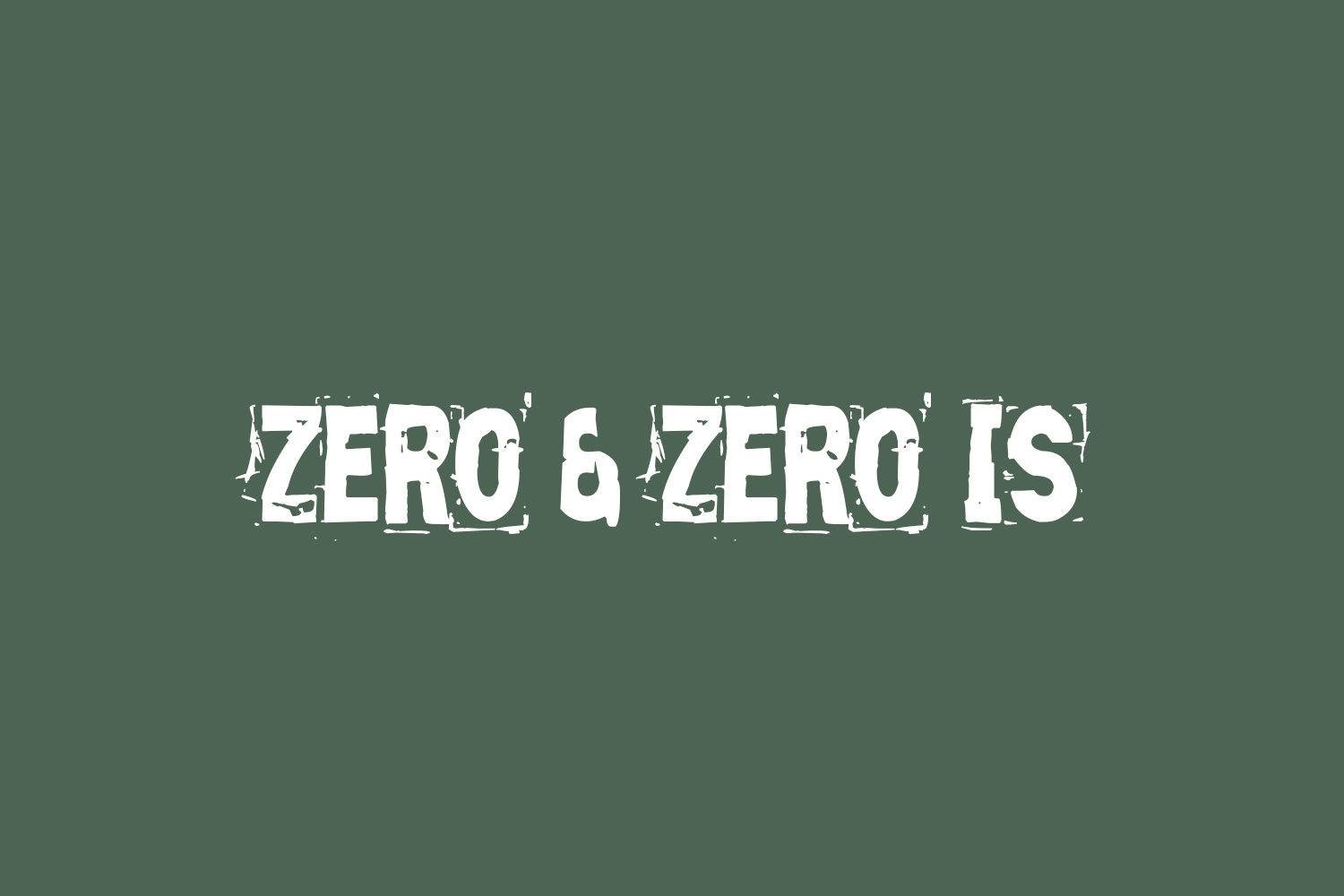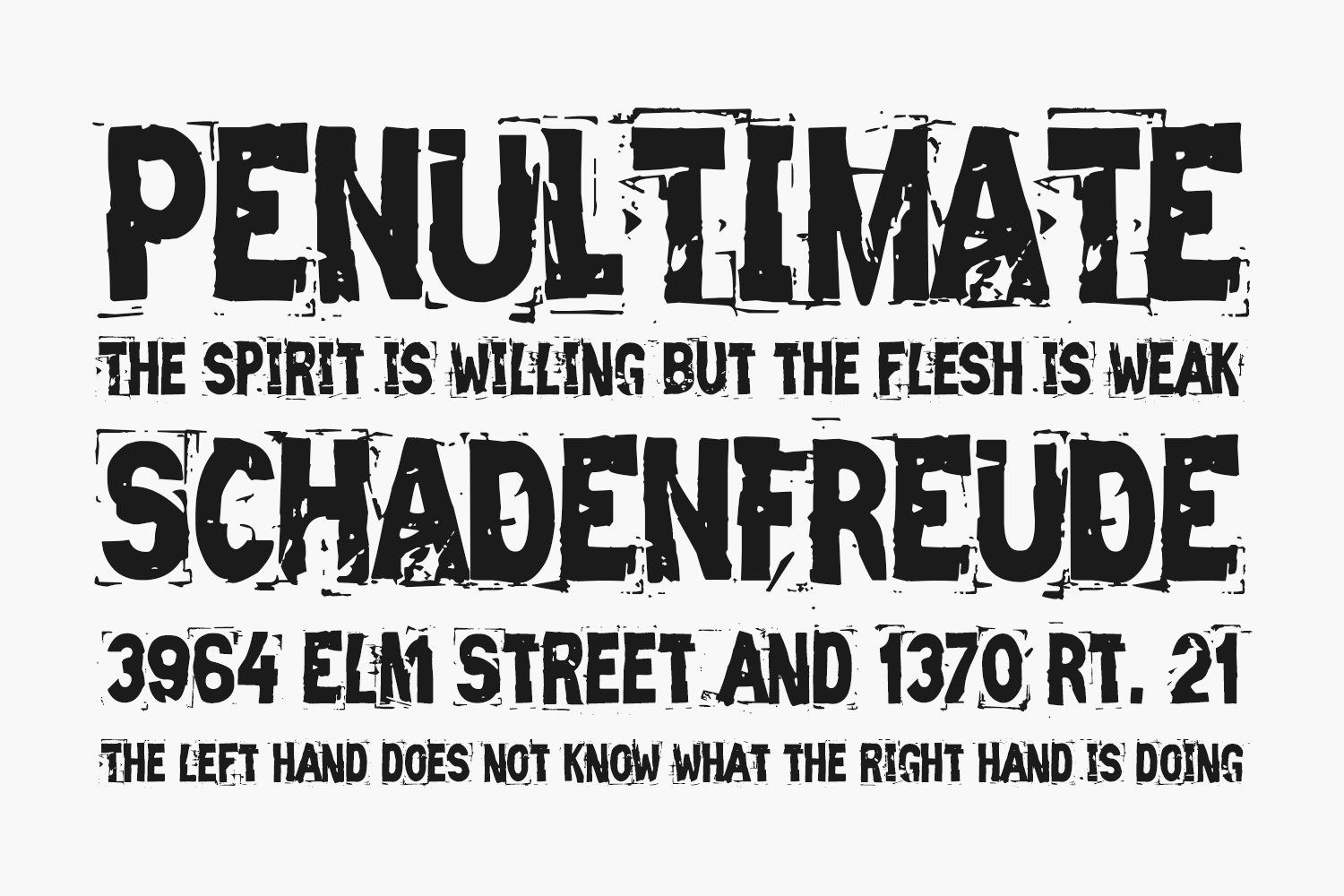
A unique method was used in creating this typeface. Several sheets of clear plastic price tag stickers with large red digits printed on them were cut up and layered over each other, then held down with Scotch tape.